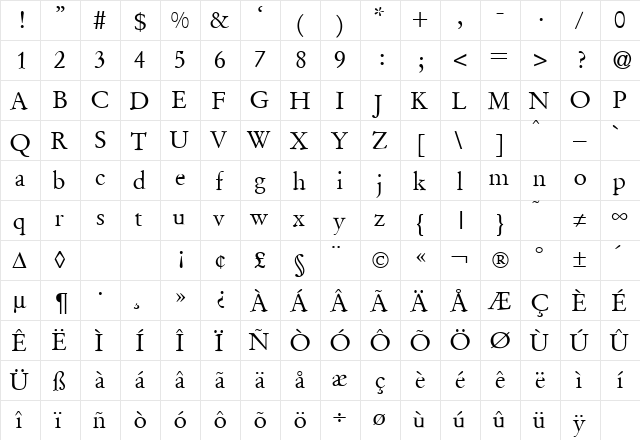
GaramondOriginal Regular
Design Context for GaramondOriginal Typeface
GaramondOriginal offers clean, dependable letterforms without strong stylistic allegiance, making it a practical choice for designers who need flexibility.